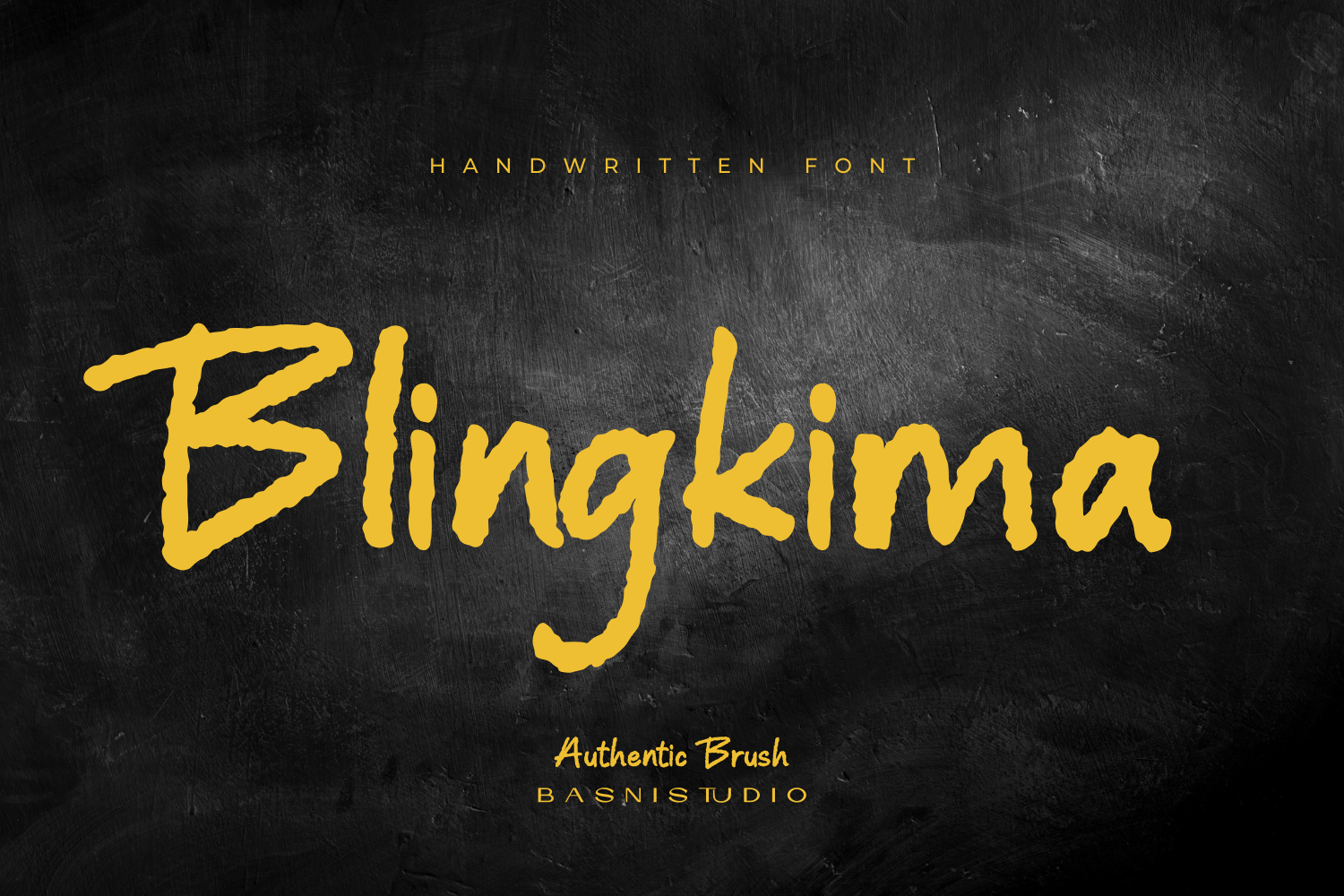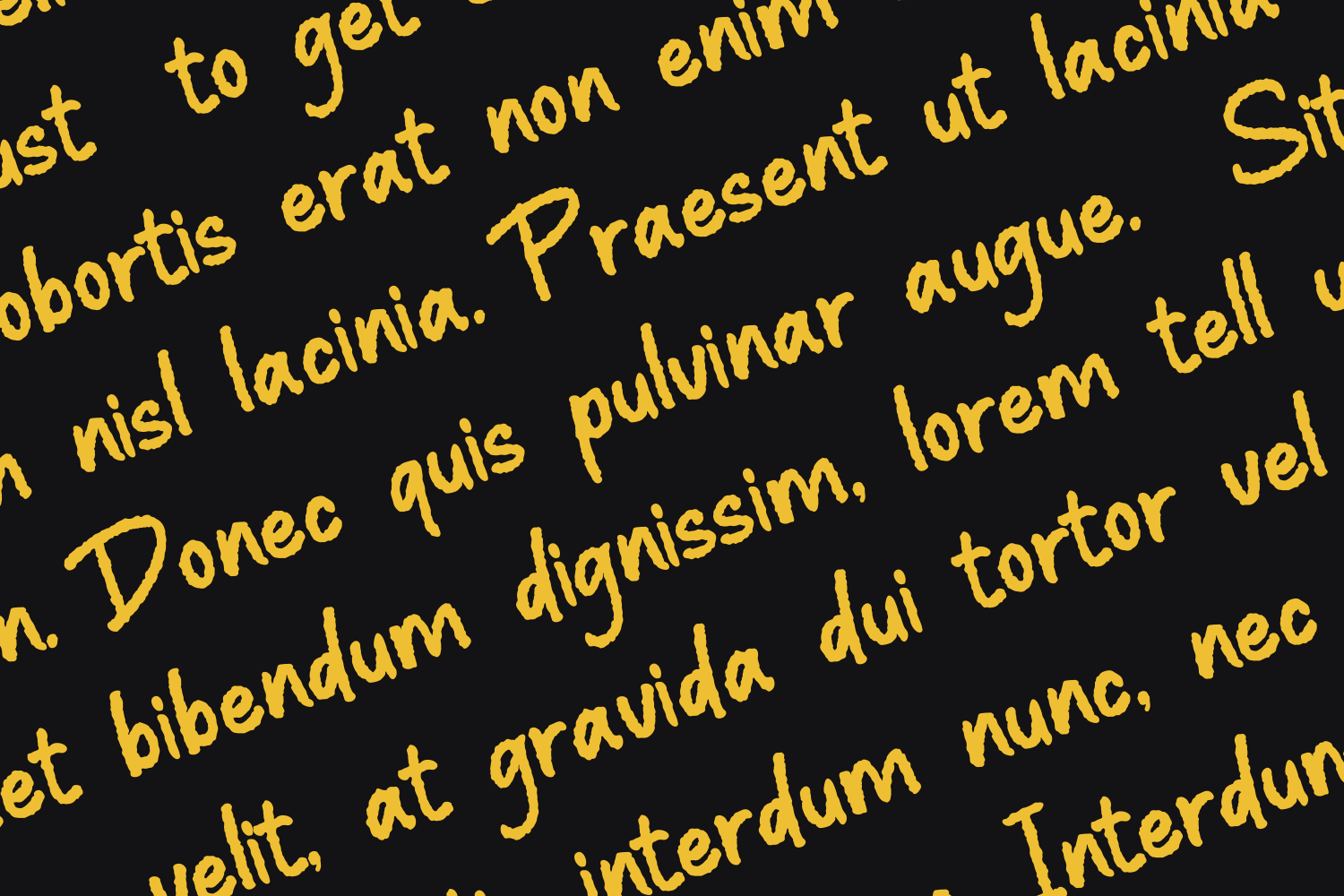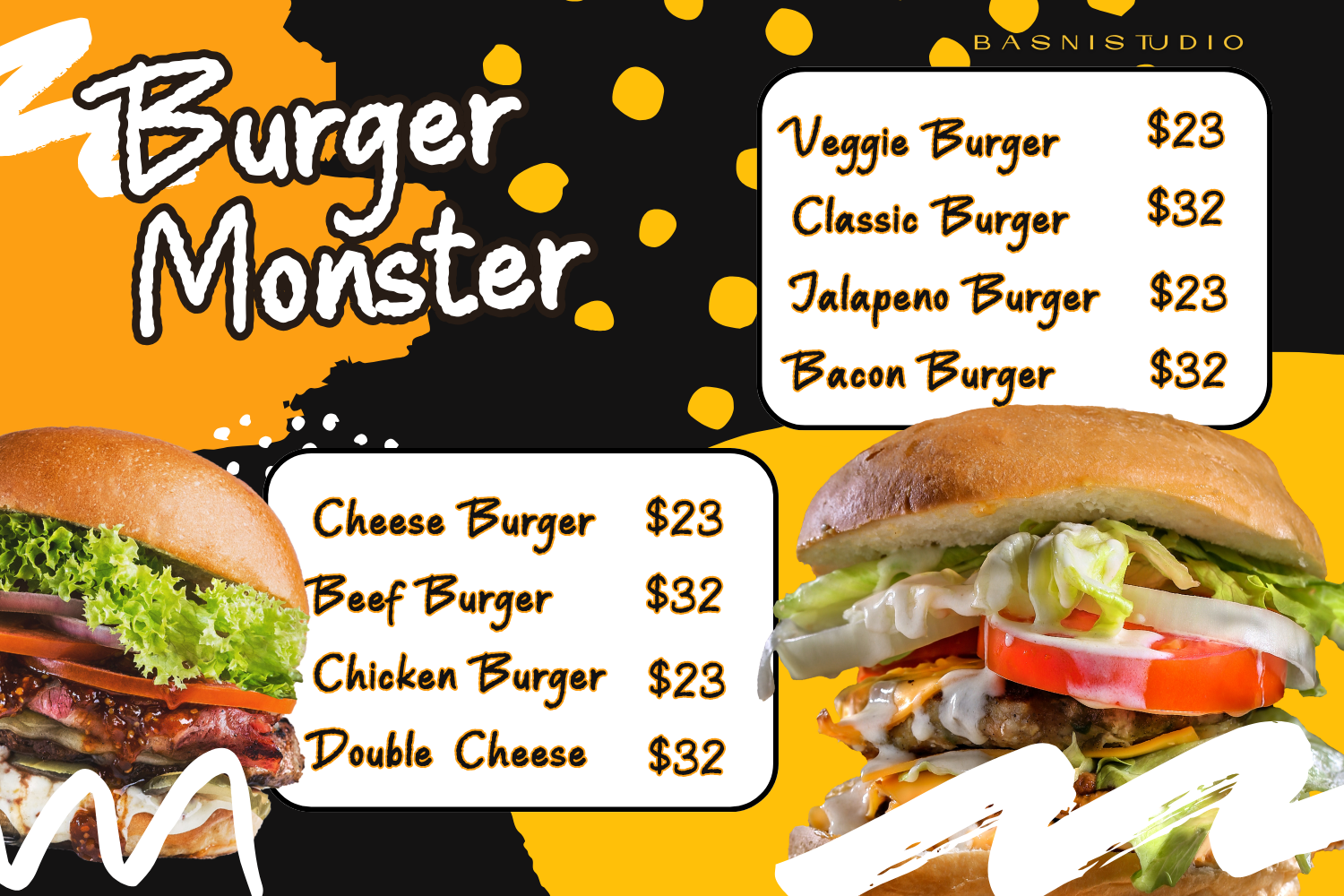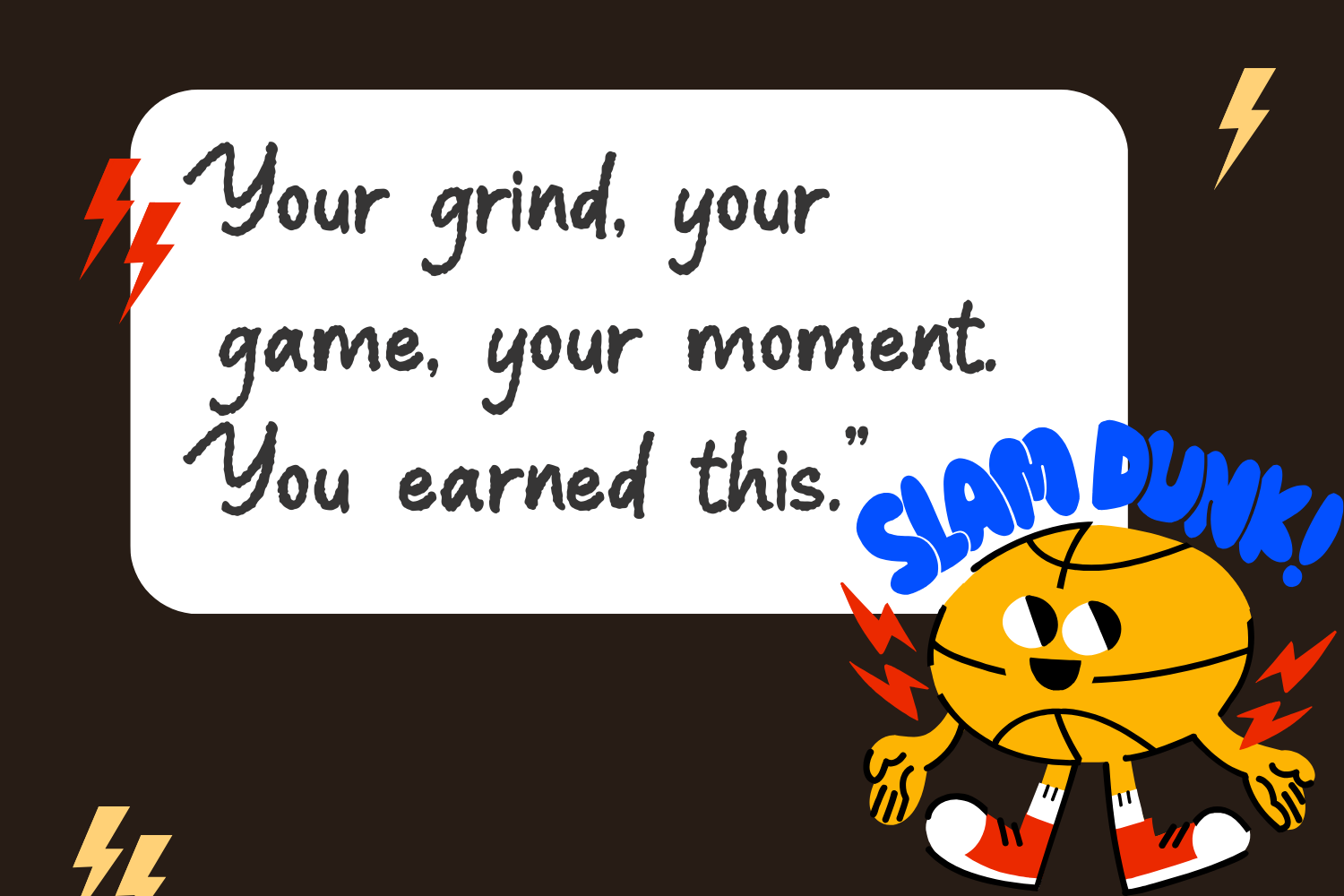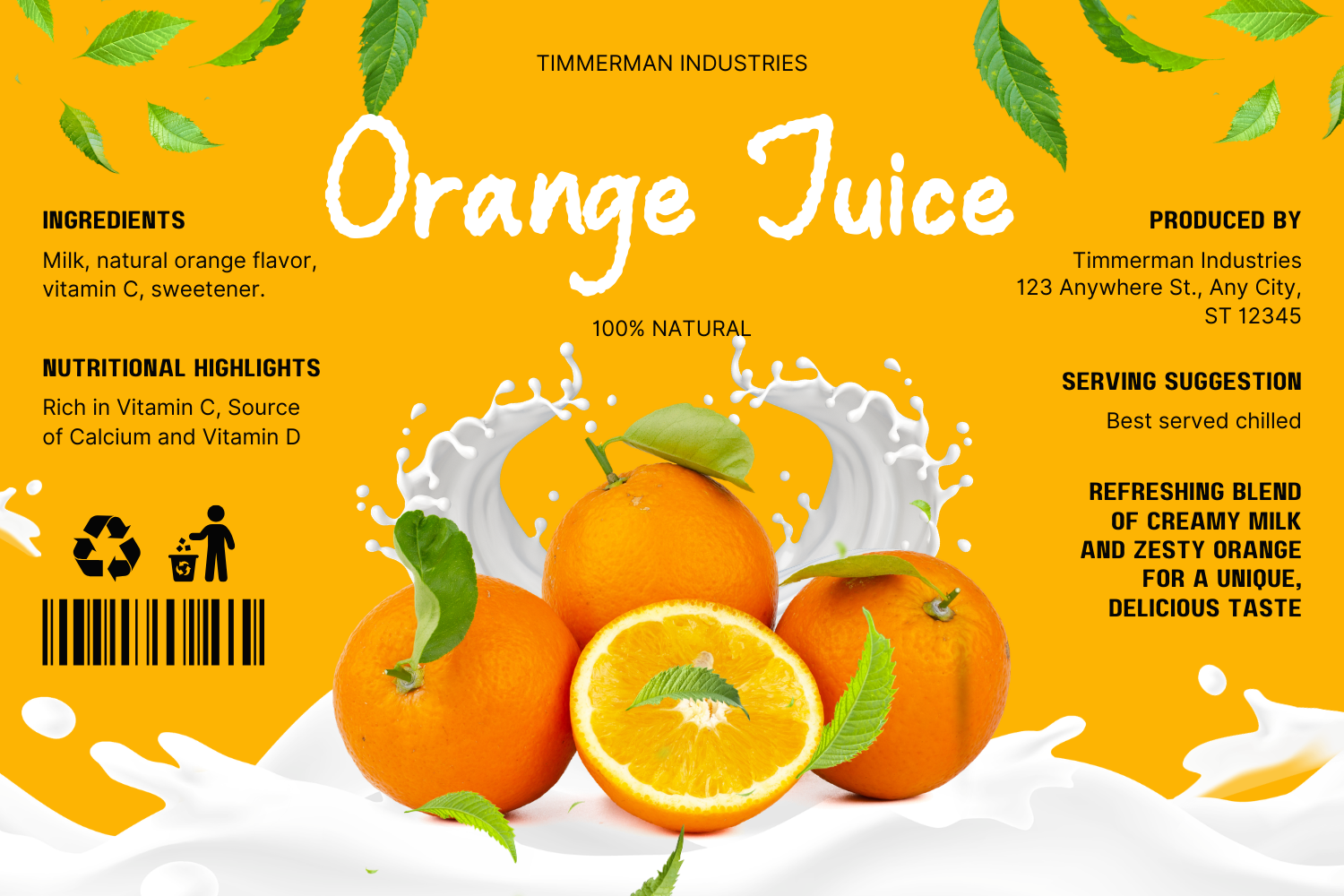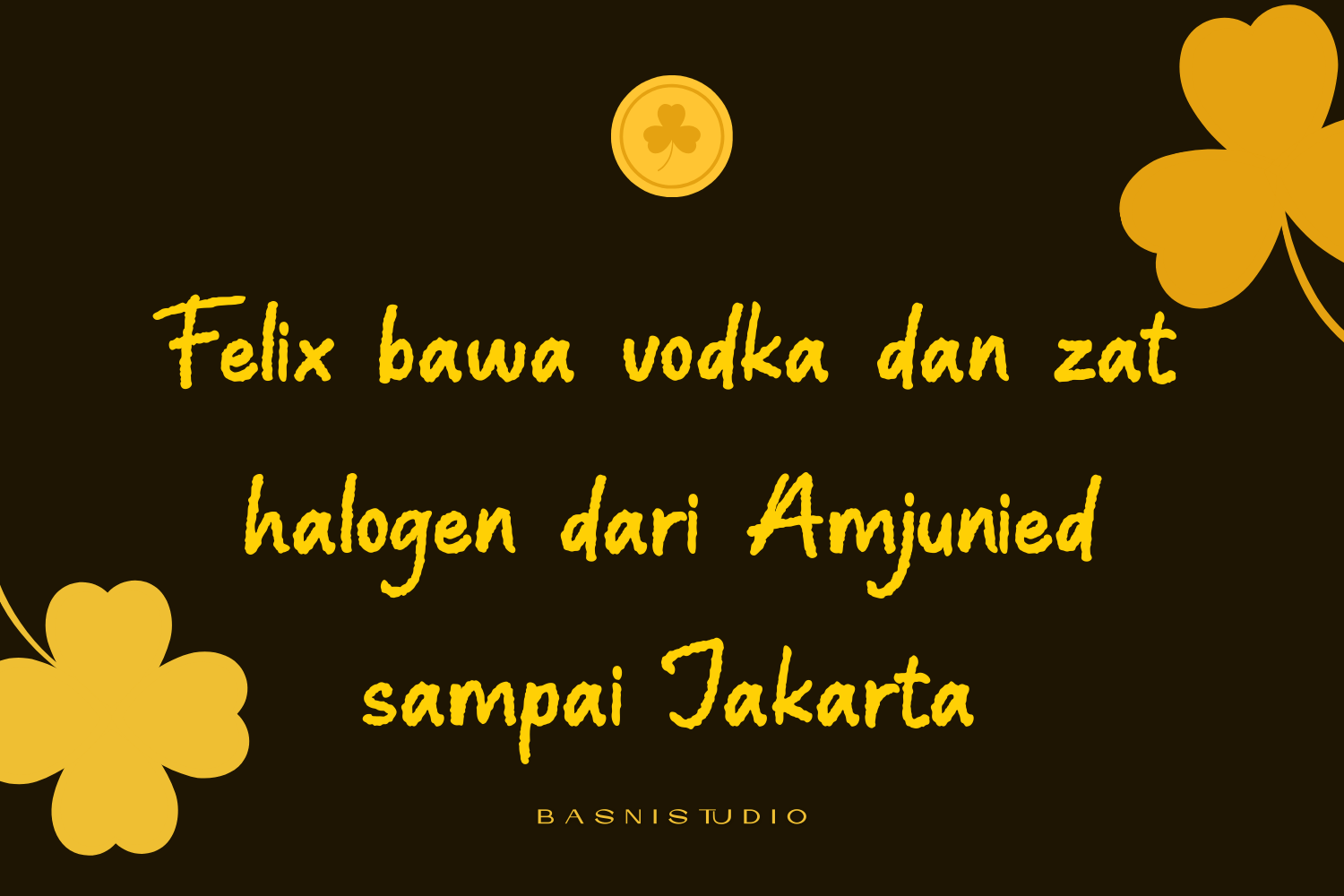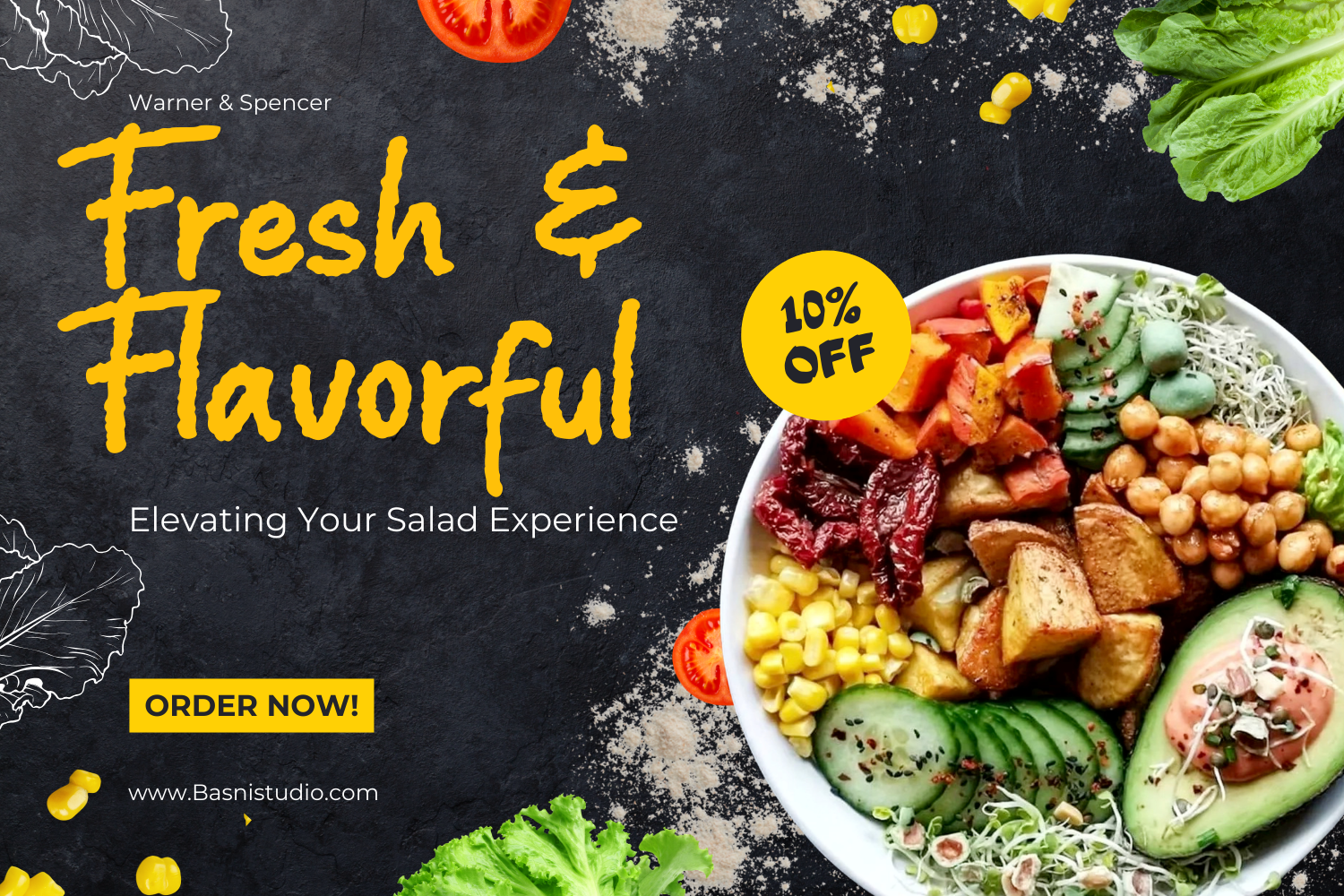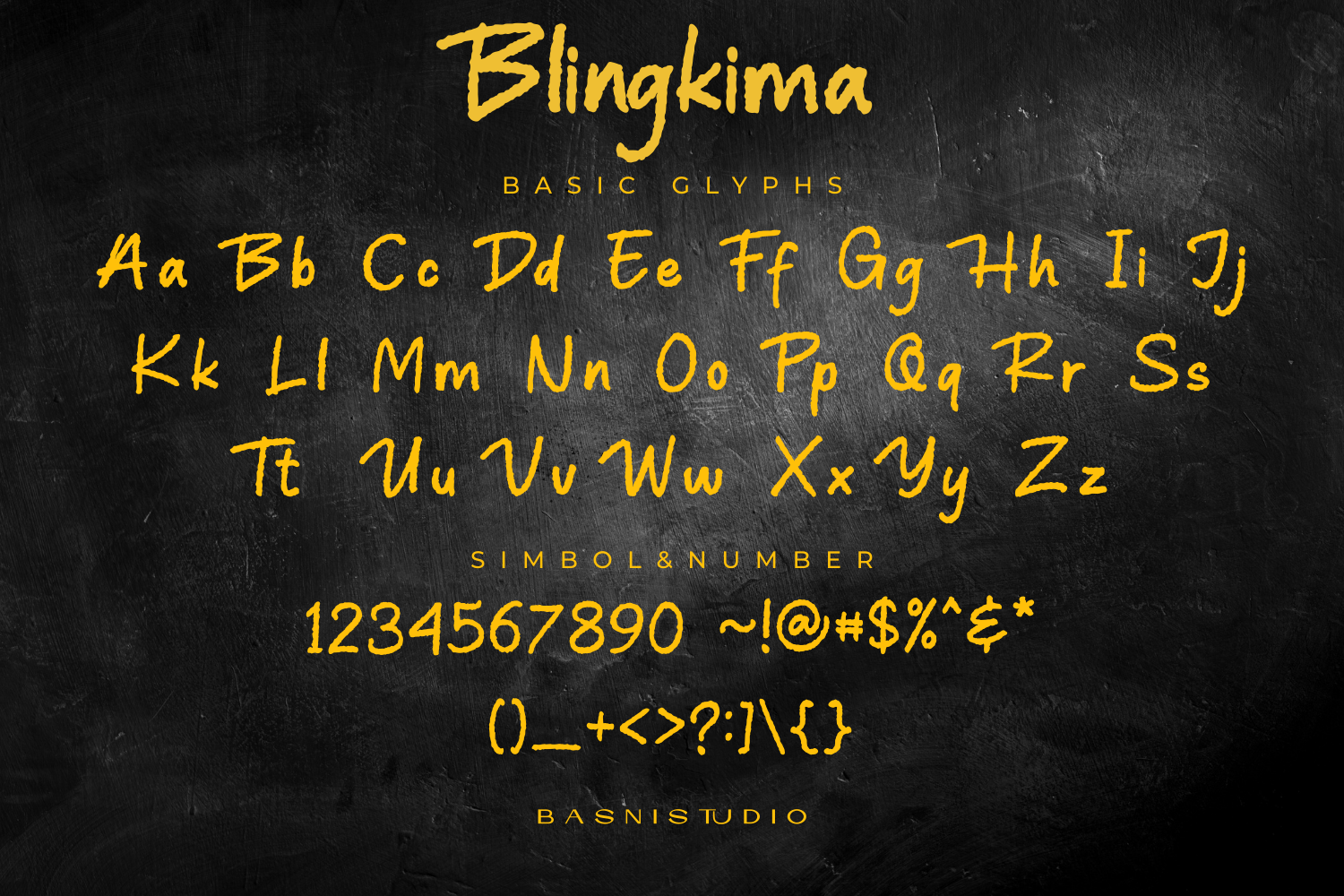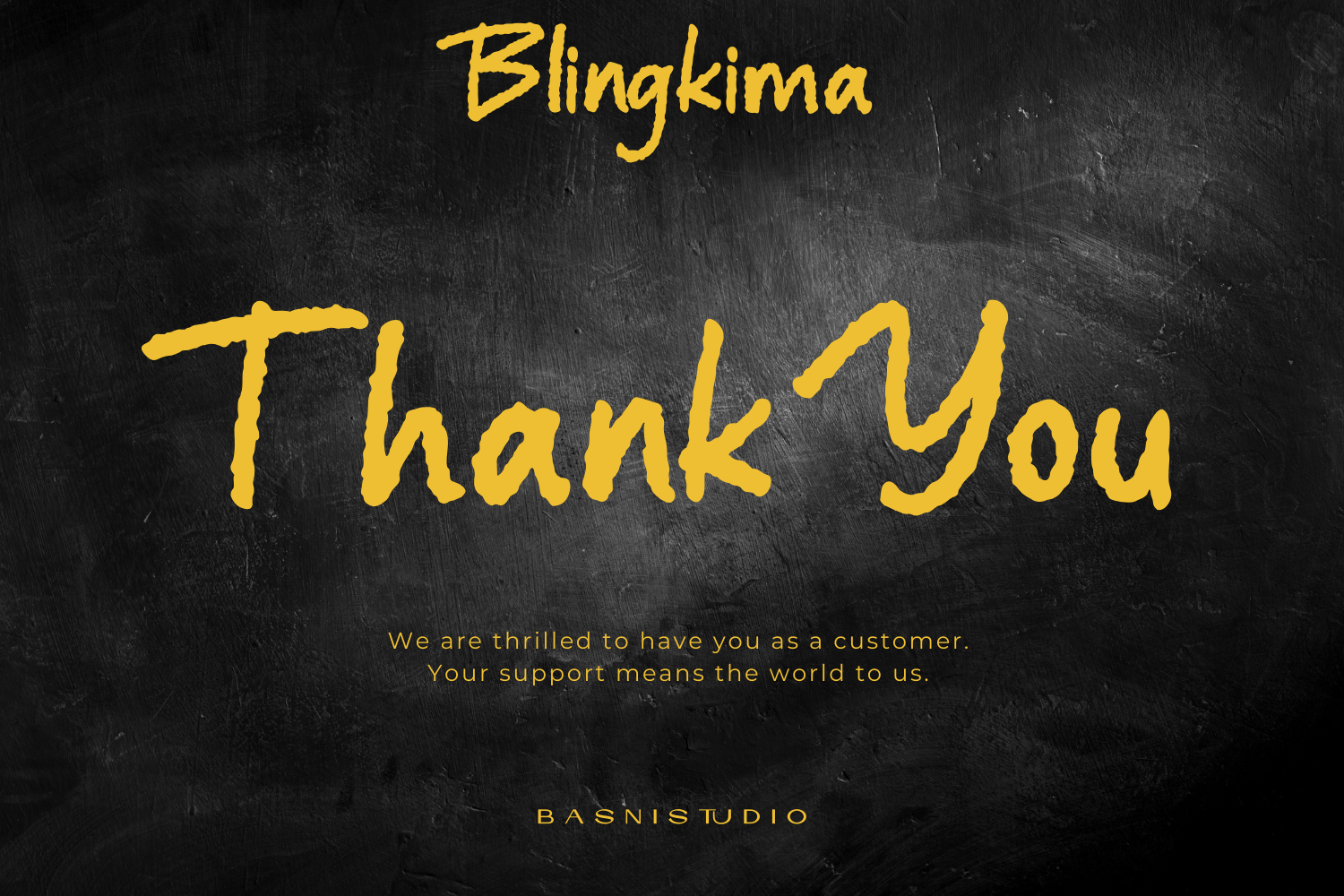
Blingkima– Handwritten Font
Handwritting Font Created with real brush for a natural look and casual touch to everything from branding and social media to invitations and packaging.
Natural & Casual – Perfect for tagline, quotes, greeting cards, and more
Authentic Handwritten Feel – Created with real brush for a natural look
Whether you’re building a powerful brand identity or crafting a standout design,
Blingkima a Easy Handwritting Font Created with real pen strokes for a natural look gives you the creative edge you need.
- Uppercase & lowercase letters
- Numbers & punctuation
- Multilingual Support ( Support for 90 languages )